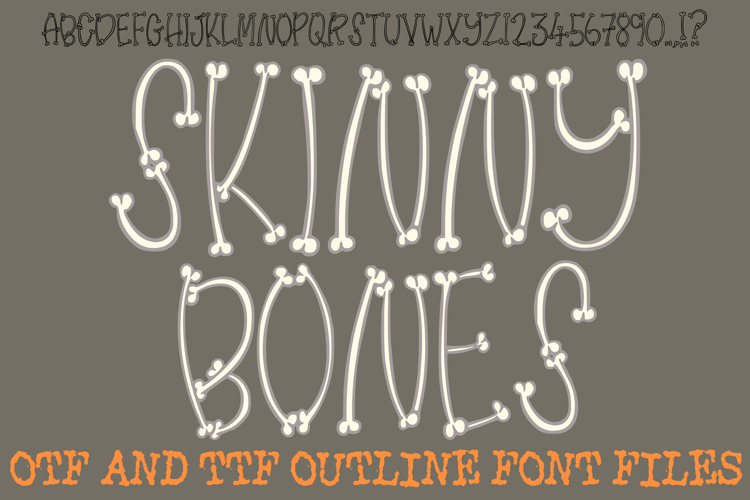
Skinny Bones Lettering Font Halloween Skeleton ABC OTF Type
The Skinny Bones Font is a premium, hand-drawn skeleton display typeface that brings a delicate, "creepy-cute" aesthetic to the spooky season. Each character is meticulously sculpted from elongated, slender bone structures, offering a tall and narrow silhouette that is perfect for high-impact vertical designs.
As a designer, you’ll appreciate the rhythmic, "wonky" baseline and the anatomical charm of the interlocking femur and tibia shapes. This font strikes a sophisticated balance between a whimsical doodle and a classic horror relic. It is the ultimate tool for Halloween branding, trick-or-treat apparel, and boutique holiday decor. Whether you are creating sublimation T-shirts, Cricut vinyl decals, or spooky social media headers, the Skinny Bones Font adds a unique, handcrafted "rattle" to your typography that stands out from the crowd.